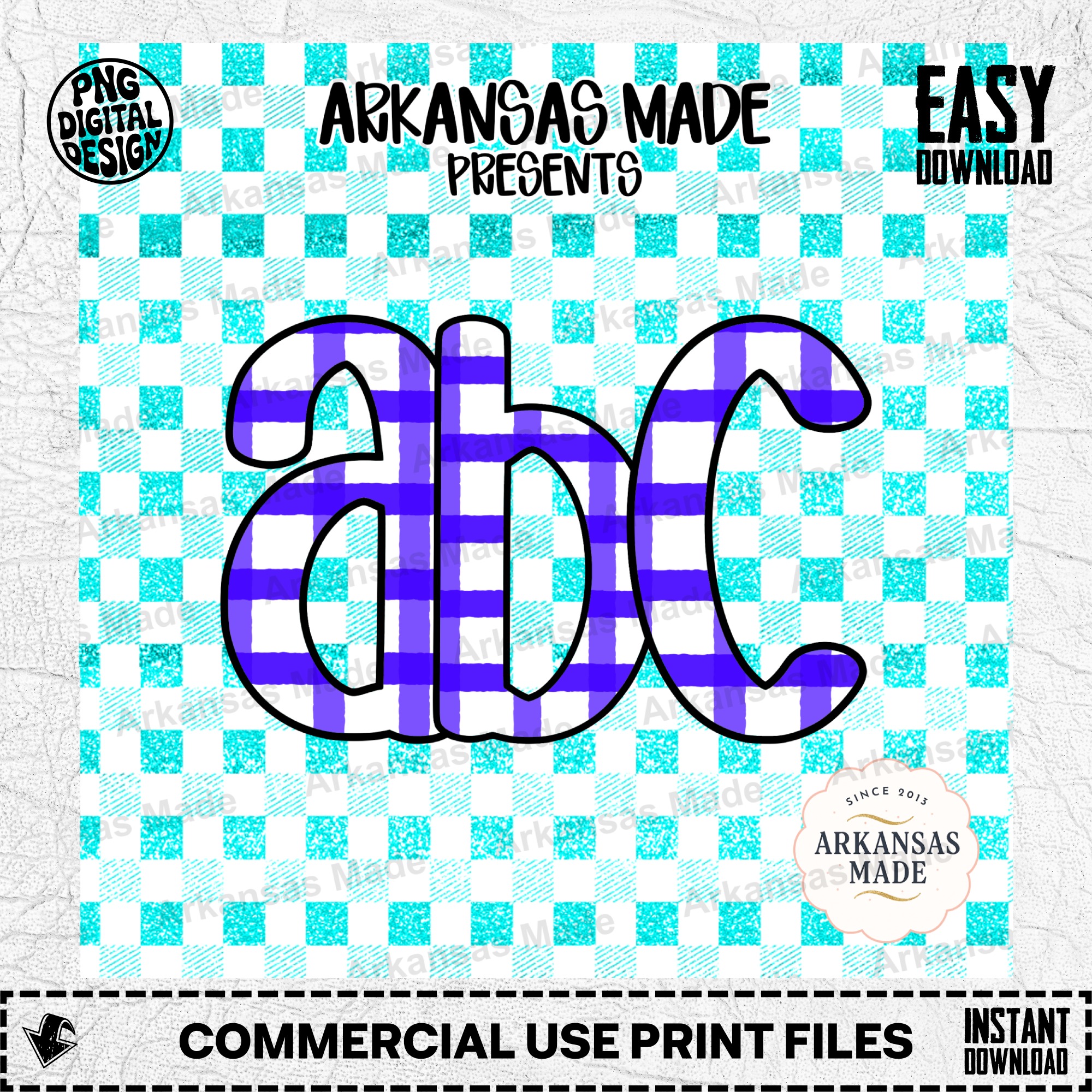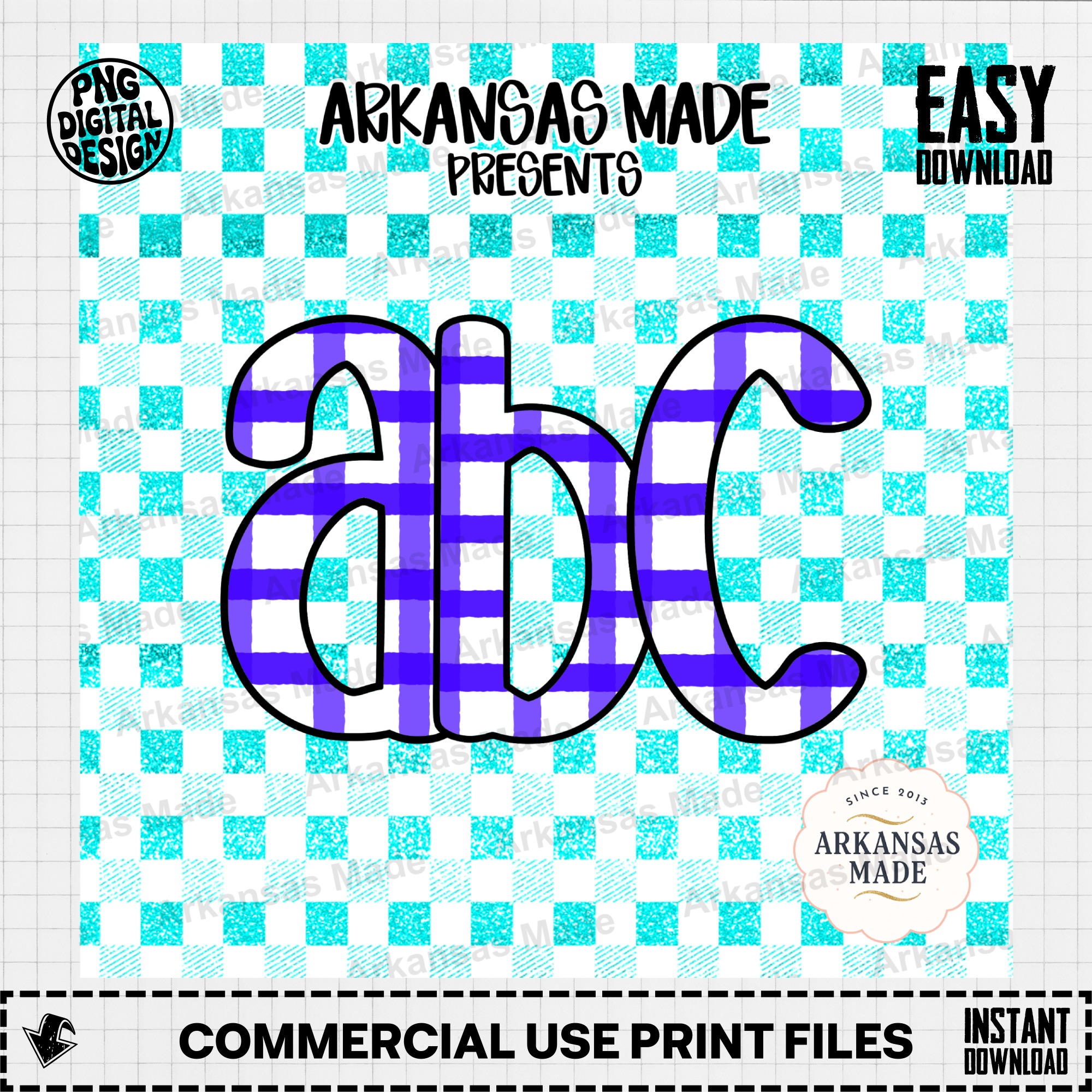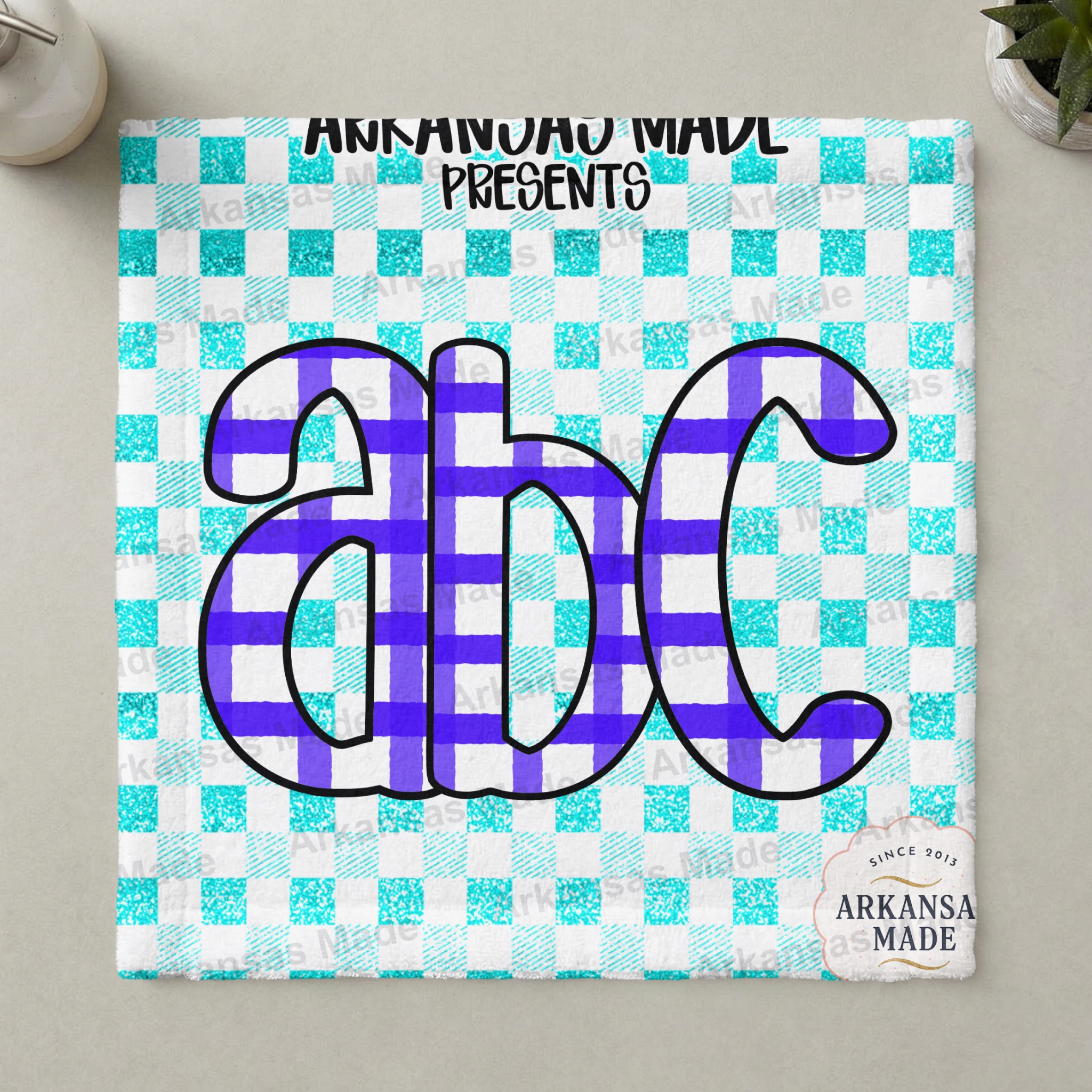
Purple Plaid Alphabet Digital Download Alpha Set, Teal Glitter PNG Letters, Buffalo Check Font, Sublimation Design, Craft Supply
Vibrant Purple Buffalo Plaid Alphabet Digital Download Alpha Set with faux teal glitter accents. Perfect for unique crafts and personalized gifts! Unleash your creativity with this charming alpha set, featuring a cozy purple buffalo check pattern for each letter. The playful teal faux glitter background adds a whimsical touch, making it ideal for everything from nursery decor to school projects and handmade items. A thoughtful gift for crafters, teachers, or anyone who loves to personalize their world.